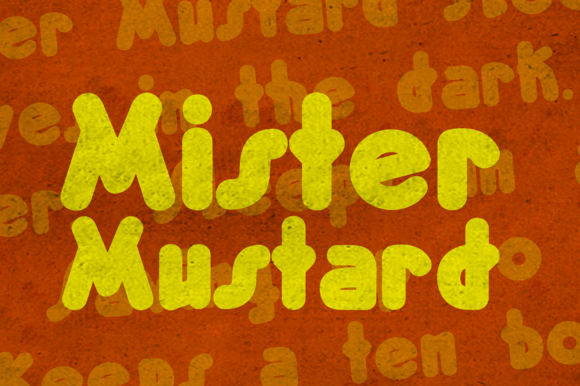
MonsterMustard is a chubby art deco-style font. The font is available in two styles; regular and italic. While it was designed to be playful, this font has both uppercase’s and lowercase’s, so it works for practically everything. It’s loaded with extra foreign glyph’s so it gives you plenty of options
Font Name: Mister Mustard Font